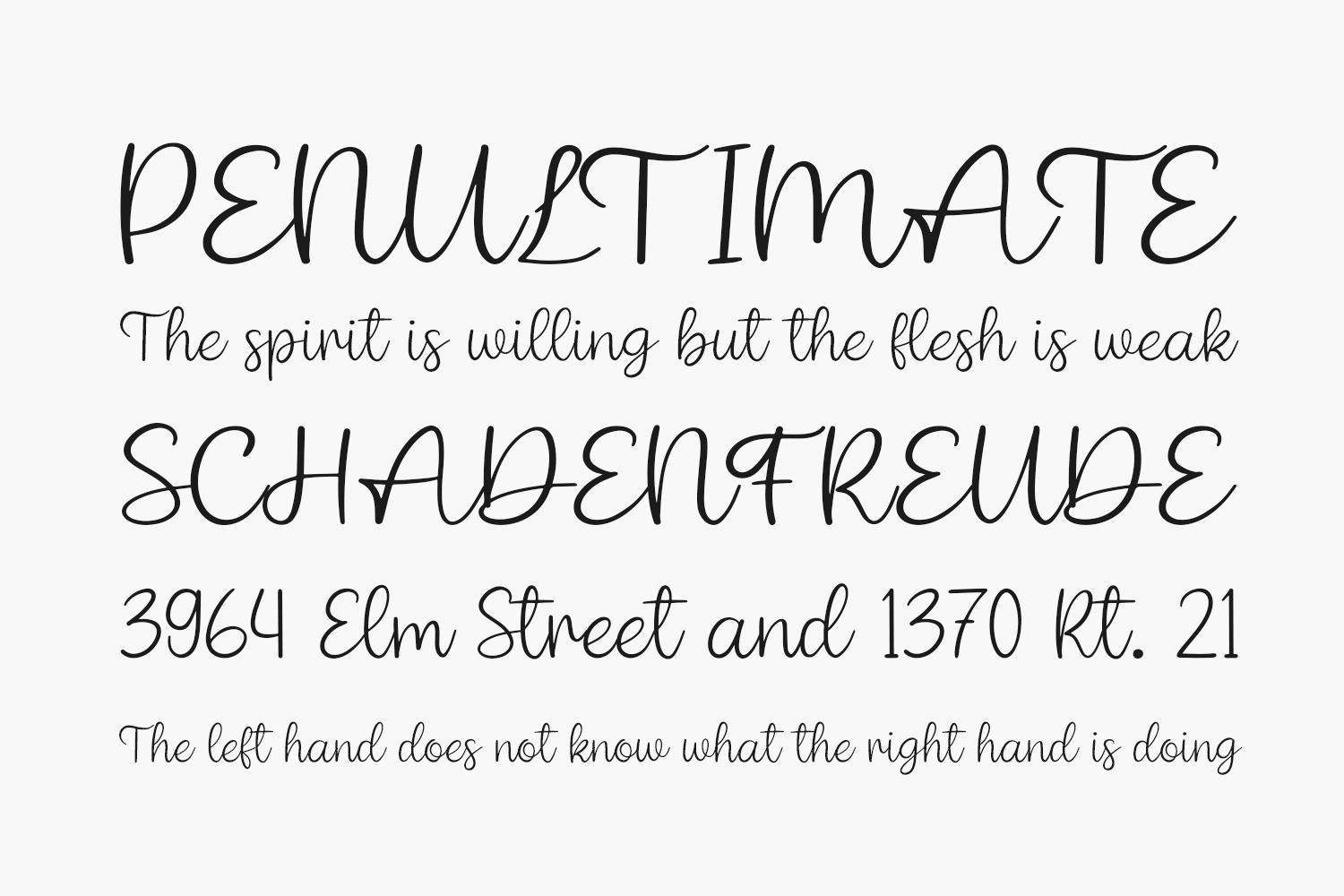
Amelinda Free Font is an equally sophisticated and bold handwritten font that’s great for delivering any message with confidence, authenticity and charm.
Designed by Sugeng Choirul